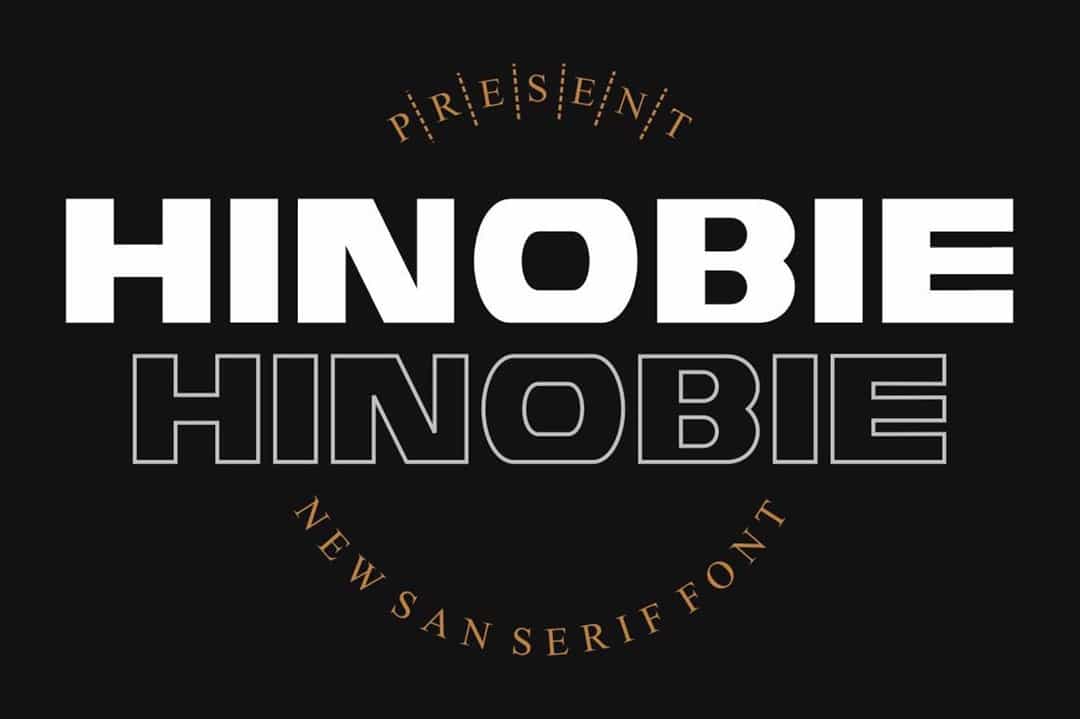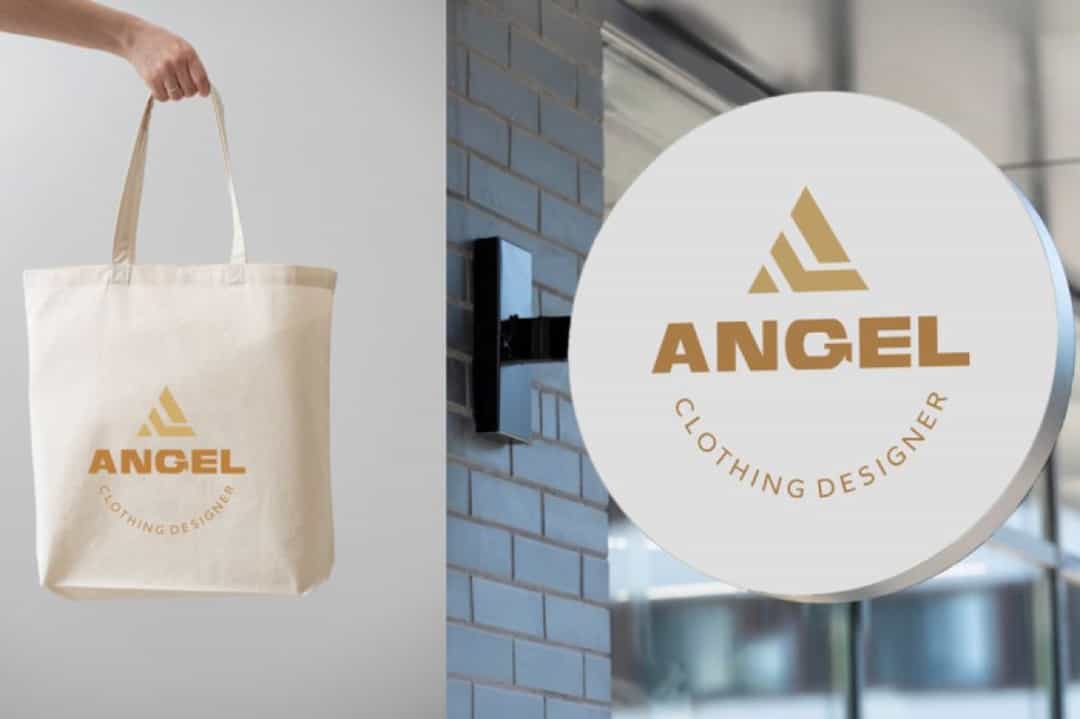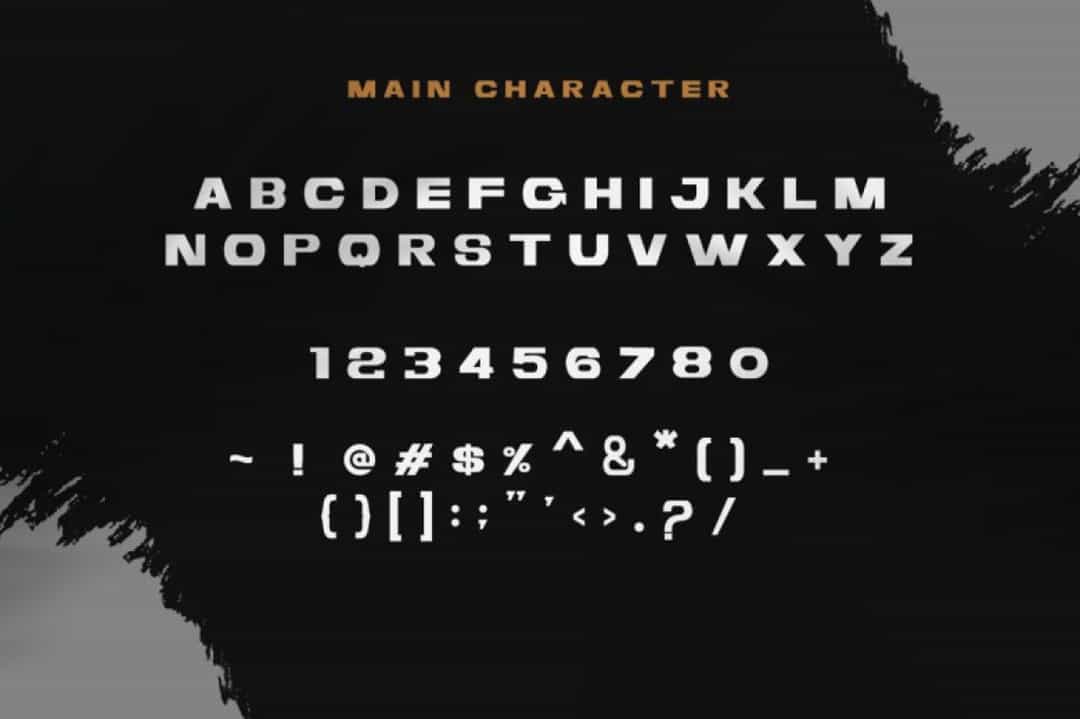
Hinobie Font
HINOBIE is an uni-serif display font with an eye-catching modern, chic, fun and flexible style. This font looks absolutely breathtaking when displayed at dimensions while being easy to read in text sizes. Additionally, this font provides plenty of special options and binders which allow designers to create stunning designs using HINOBIE font.